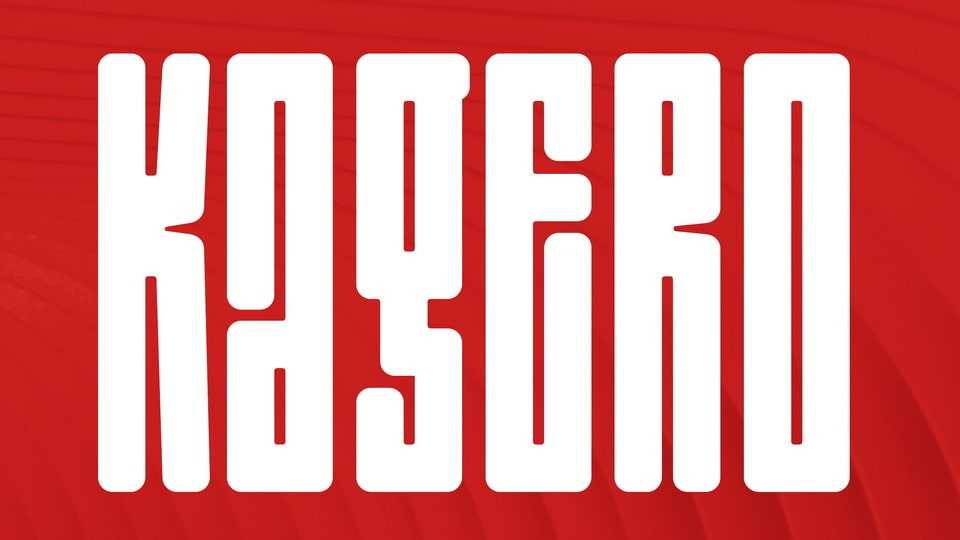
Download Kagero Rounded font, a bold, rounded condensed display typeface designed to deliver strong visual impact with a friendly and modern tone.
Designer: Youthlabs Studio